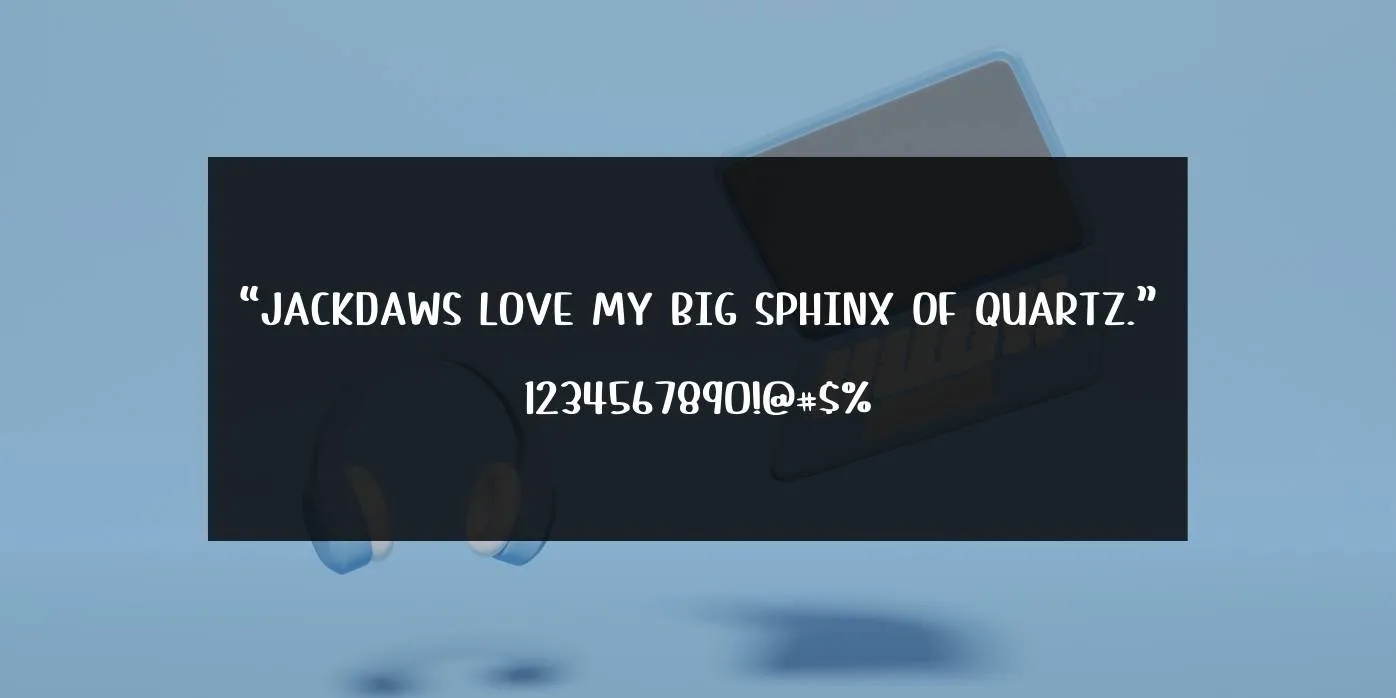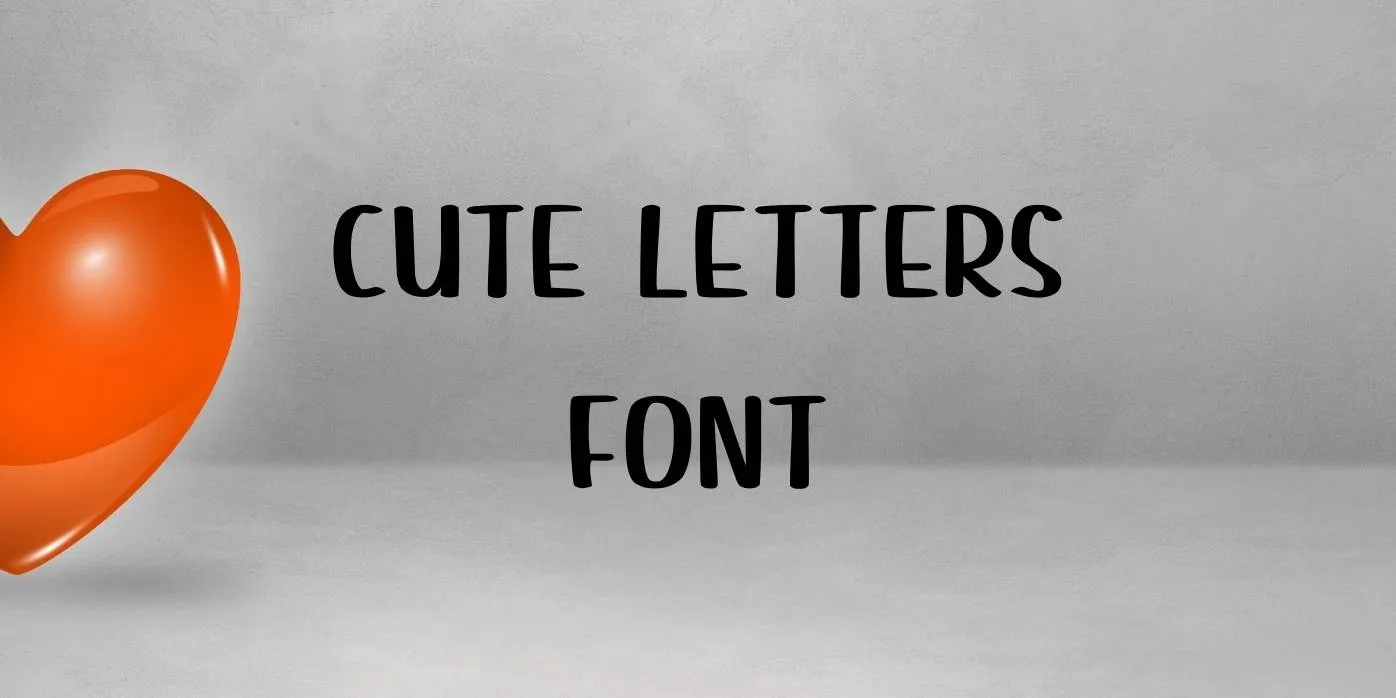
Cute Letters Font
In this post, we introduce the Cute Letters Font that belongs to the fancy font family. This typeface was designed by Joseph Dawson. The cute letters font supports up to 128 different languages. It has a feminine touch and it is perfect for creating elegant designs.
This font is available in two styles, regular and italic. Each style contains 473 glyphs and 200 alternate characters. You can use the alternate characters to create more unique designs. It is perfect for Adobe and Canva.
Another similar font which is lucy font is perfect for different designs. The cute letters Typeface includes a set of ligatures and stylistic alternates. Ligatures are used to connect two or more letters to create a more flowing design. Stylistic alternates are different versions of a letter that you can use to add variety to your designs.